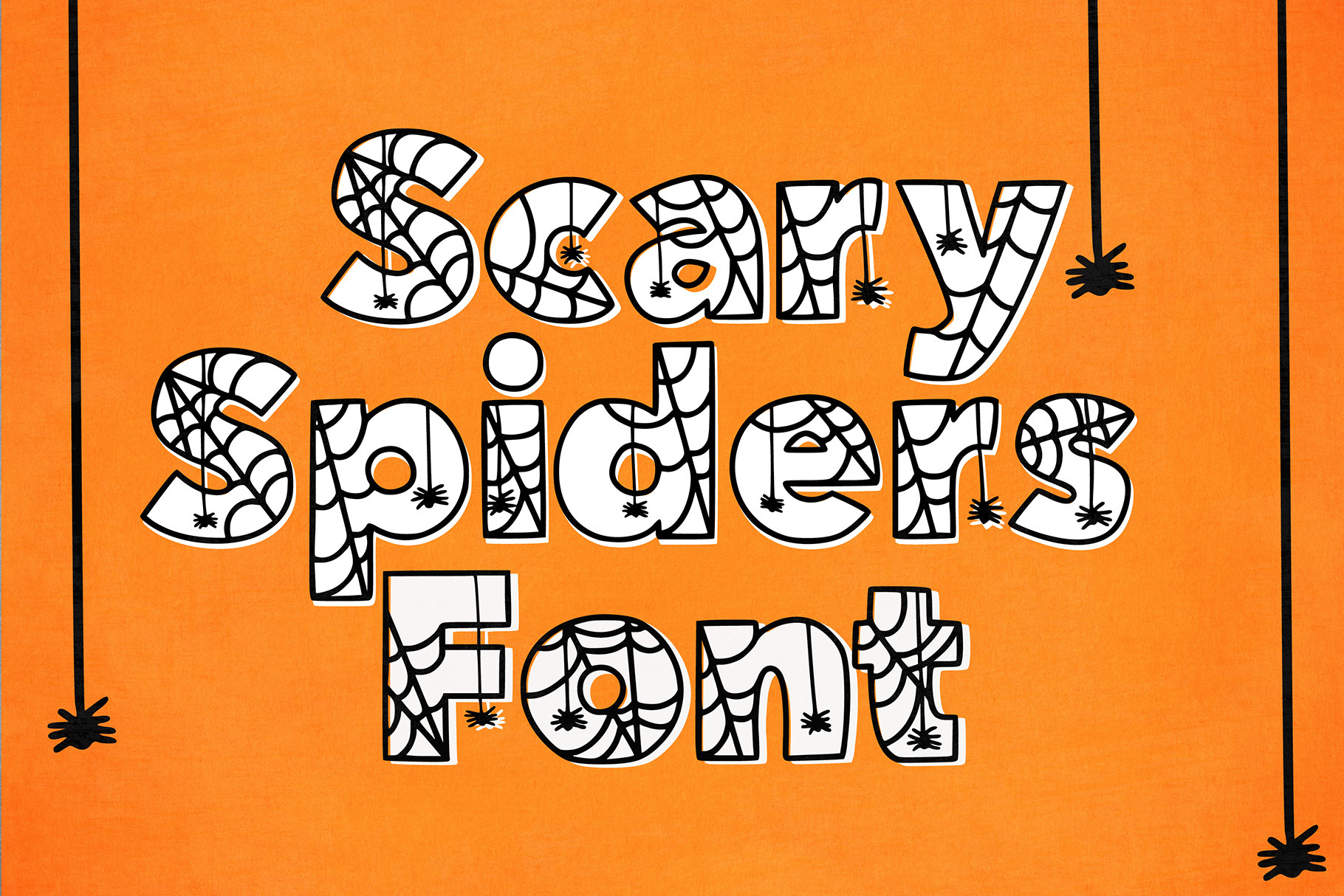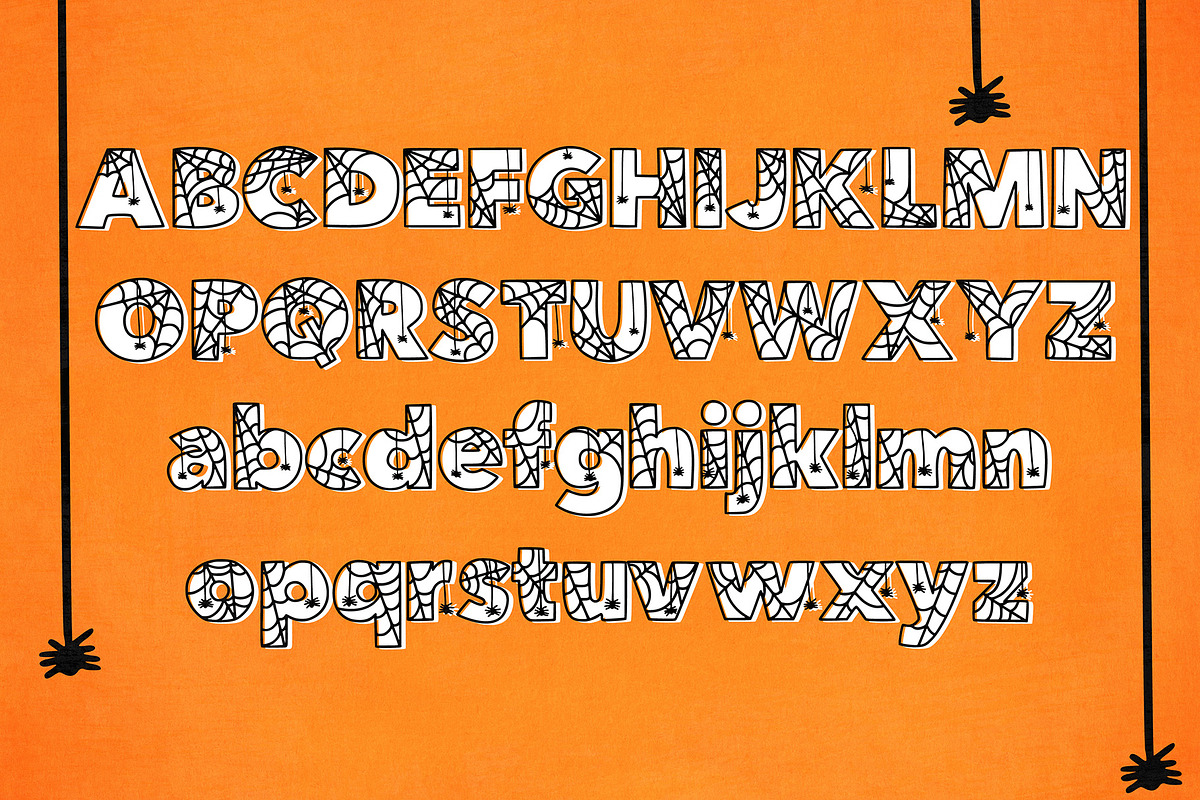
Scary Spiders Font
Introducing a cute Halloween font! A font full of spiderwebs with cute spiders hanging from them.
Perfect for Halloween greeting cards, Halloween branding, Halloween stationery, Halloween social media, Halloween scrapbooking, Halloween prints and more!